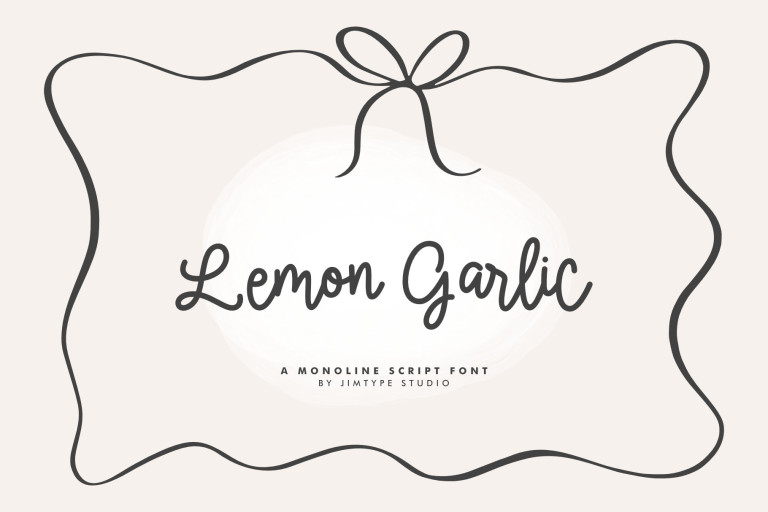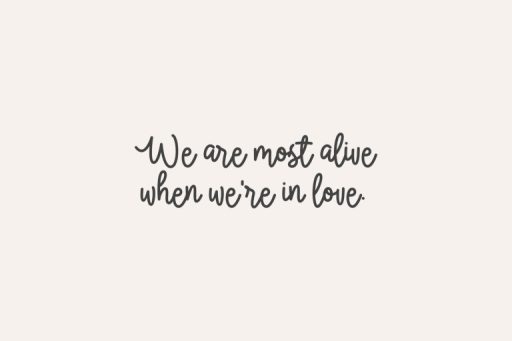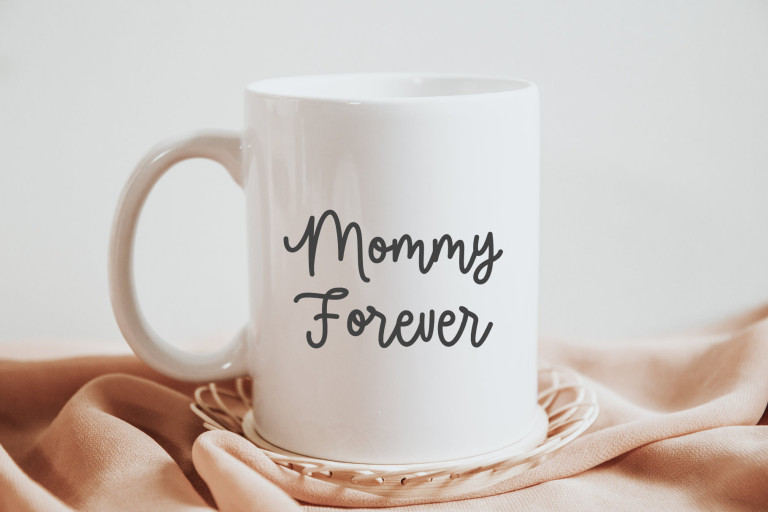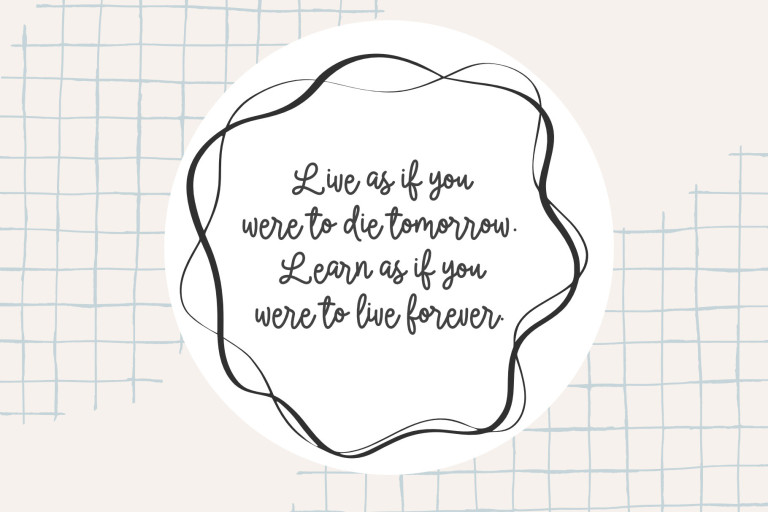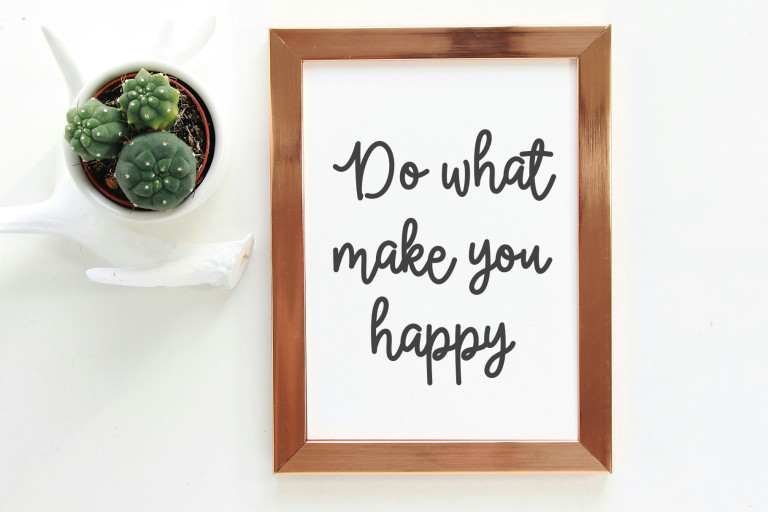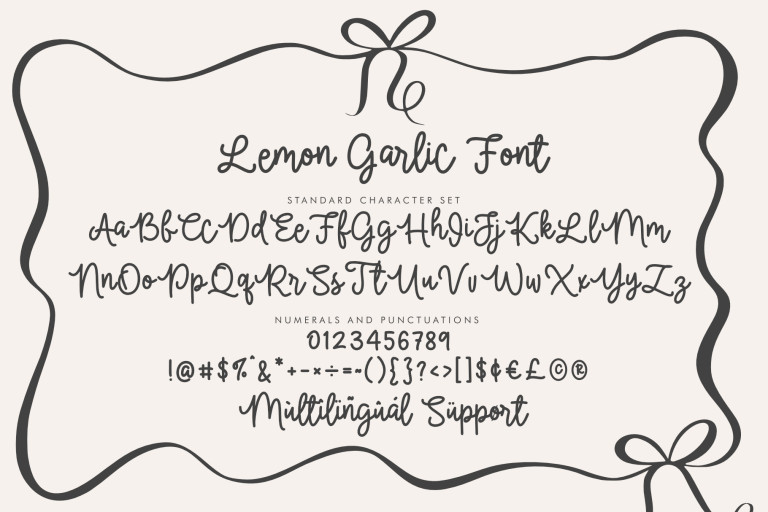
Lemon Garlic - Business Branding Font from Jimtype Studio
Lemon Garlic
Lemon Garlic – Business Branding Font from Jimtype Studio
Say Hello to Lemon Garlic Font!
A charming and beautiful script font, this font is perfect for casual branding, quotes, social media, web, greeting cards, trendy prints, fun wedding stationery, and various designs.